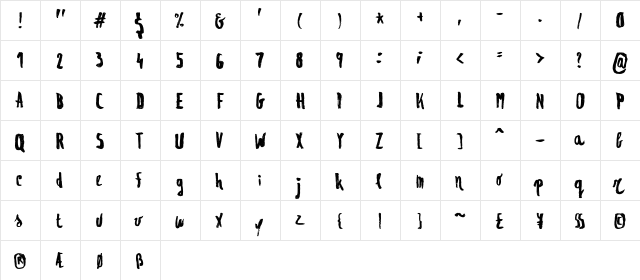
Regolith 1 Regular
Design Context for Regolith 1 Typeface
Regolith 1 is a composed and adaptable typeface that performs quietly and consistently across a wide range of design contexts.